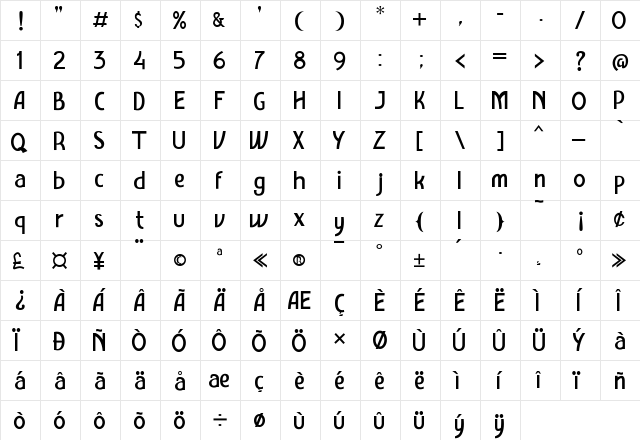
Amro Sans Regular
| Foundry | Andi Winarno - INKsTYPIA |
| Designer | Andi Winarno |
Design Context for Amro Sans Typeface
Amro Sans takes a measured approach to typography — its balanced proportions and neutral character make it a reliable workhorse for both digital and print work.